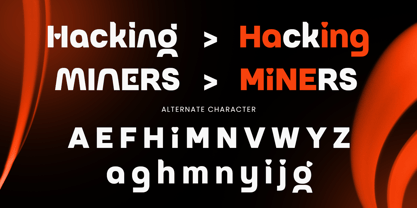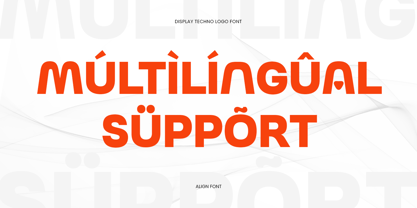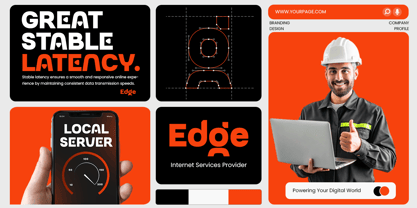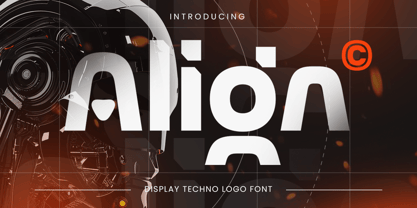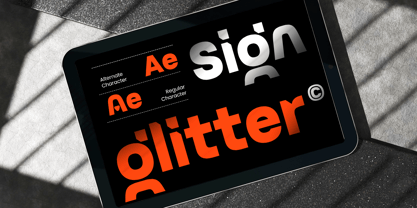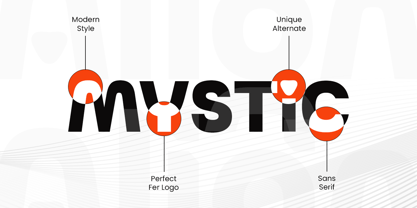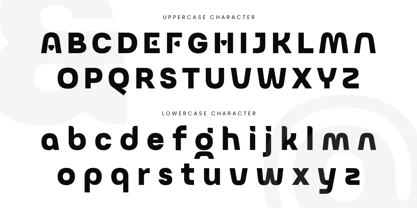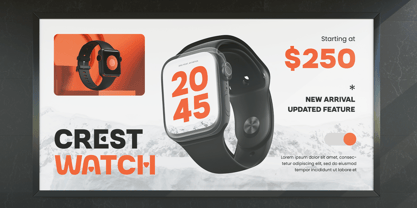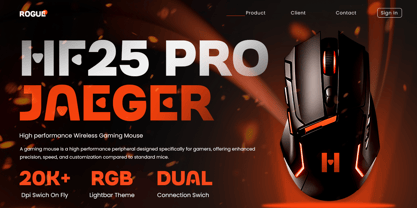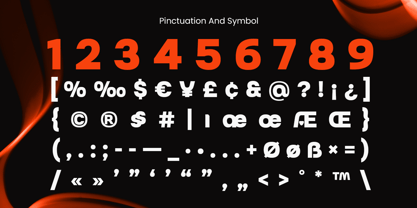
Align is a display techno font designed for futuristic and modern design projects. Perfect for logos, branding, posters, and digital media, it combines sharp geometry with a sleek, bold aesthetic.
Inspired by digital and techno styles, Align delivers clarity, precision, and a professional look. Its versatile design makes it suitable for both print and digital applications.
Align – Display Techno Logo Font Features
Bold and futuristic display characters
Ideal for logos, branding, and modern designs
Uppercase, lowercase, numerals, and punctuation included
OpenType features for extra versatility
Multilingual support for Afrikaans, Albanian, Asu, Basque, Bemba, Bena, Breton, Chiga, Cornish, Dutch, English, Estonian, Filipino, Finnish, Friulian, Galician, German, Gusii, Indonesian, Irish, Italian, Kabuverdianu, Kalenjin, Kinyarwanda, Luo, Luxembourgish, Luyia, Machame, Makhuwa-Meetto, Makonde, Malagasy, Manx, Morisyen, North Ndebele, Nyankole, Oromo, Portuguese, Quechua, Romansh, Rombo, Rundi, Rwa, Samburu, Sango, Sangu, Scottish Gaelic, Sena, Shambala, Shona, Soga, Somali, Spanish, Swahili, Swedish, Swiss, and more.
Make futuristic logos and branding bold and sleek with Align – the ultimate techno display font. 🚀
Align